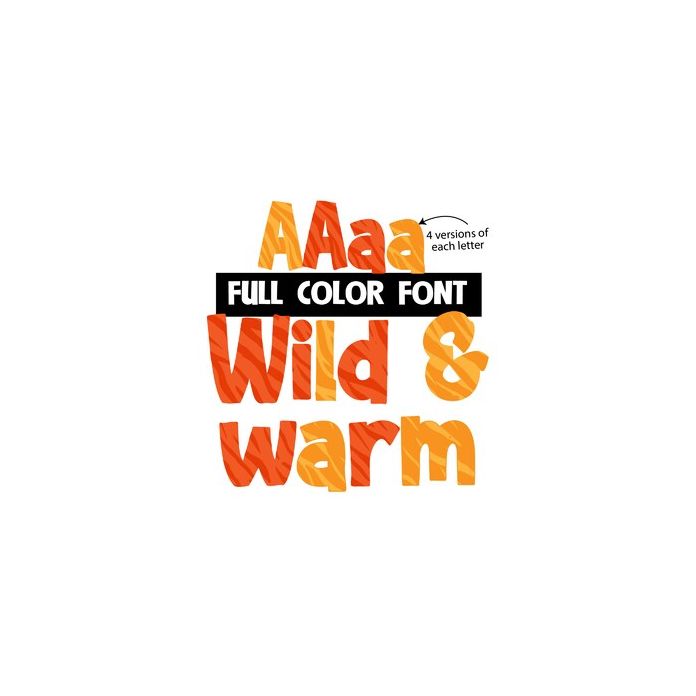
This full-color font features a wild animal print in orange and yellow. You can access a second color of tiger stripes by using the alt characters in Silhouette's glyph map.